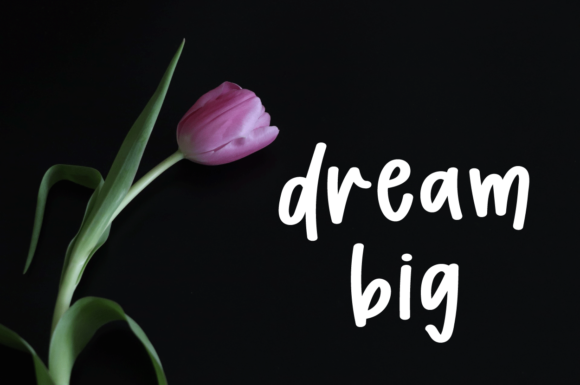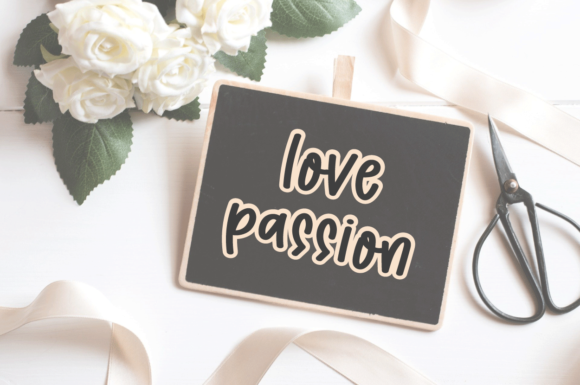
Hey Felix Font
db-ku.com - Script & Handwritten -- Hey Felix is a fresh and simple handwritten font. It looks beautiful on invitations, greeting cards, branding materials, business cards, quotes, posters, and so much more.